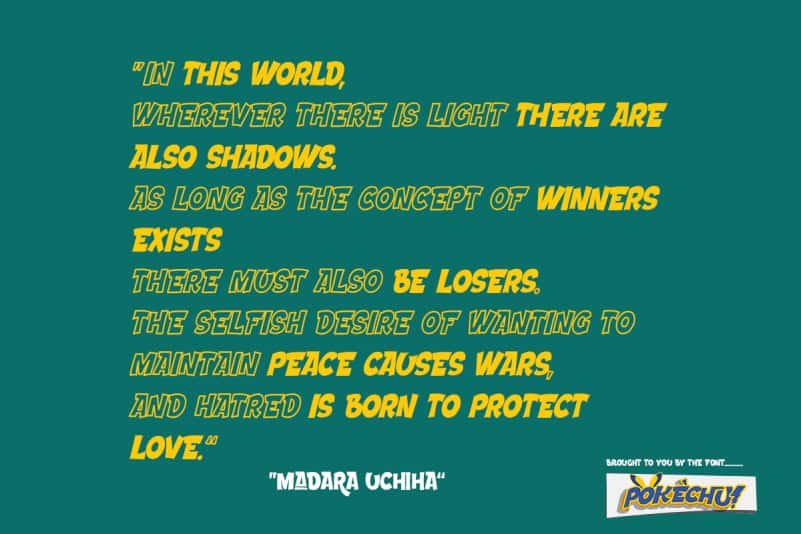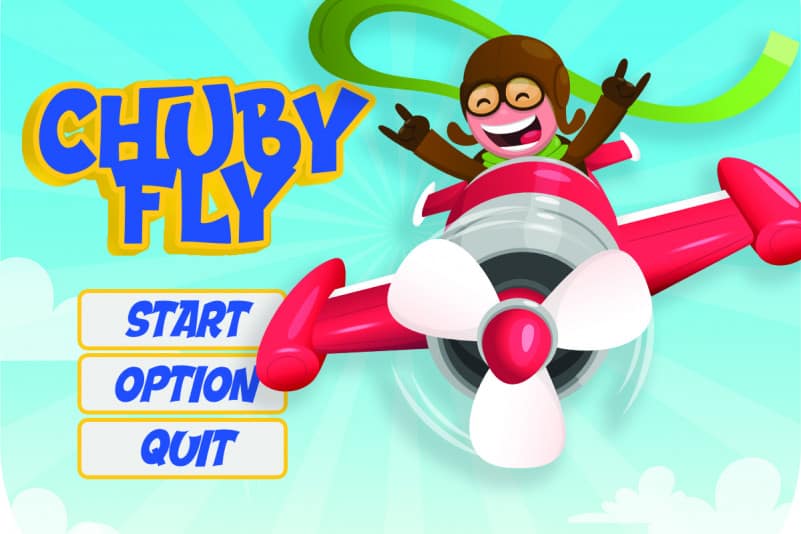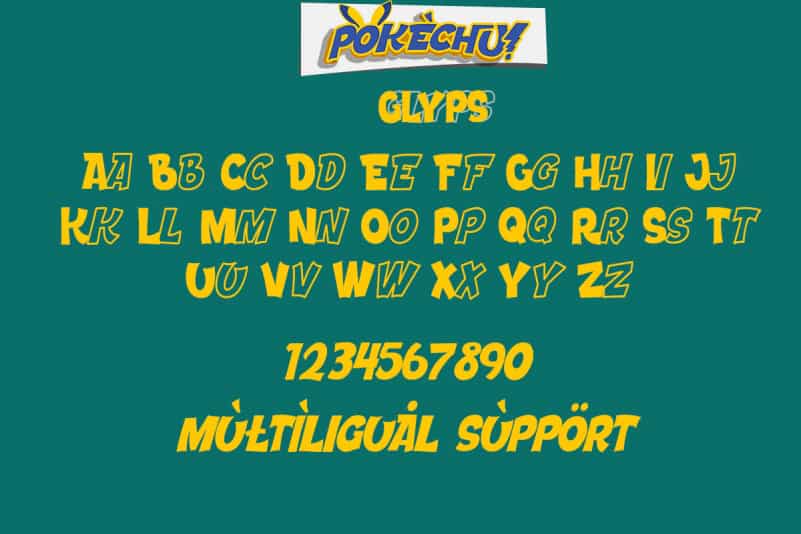
Pokechu Display Font, from Mevstory Studio, is a hand made font that has many interrelated characters. Pokechu has an opentype feature that will automatically change each character into ligatures, so it becomes a unique character. Pokechu has a strict style, but still gives a cheerful impression, making it very easy to read and apply in all design projects such as poster designs, clothing, logos, quotes, album covers, books, business cards, product designs, and many more design projects.